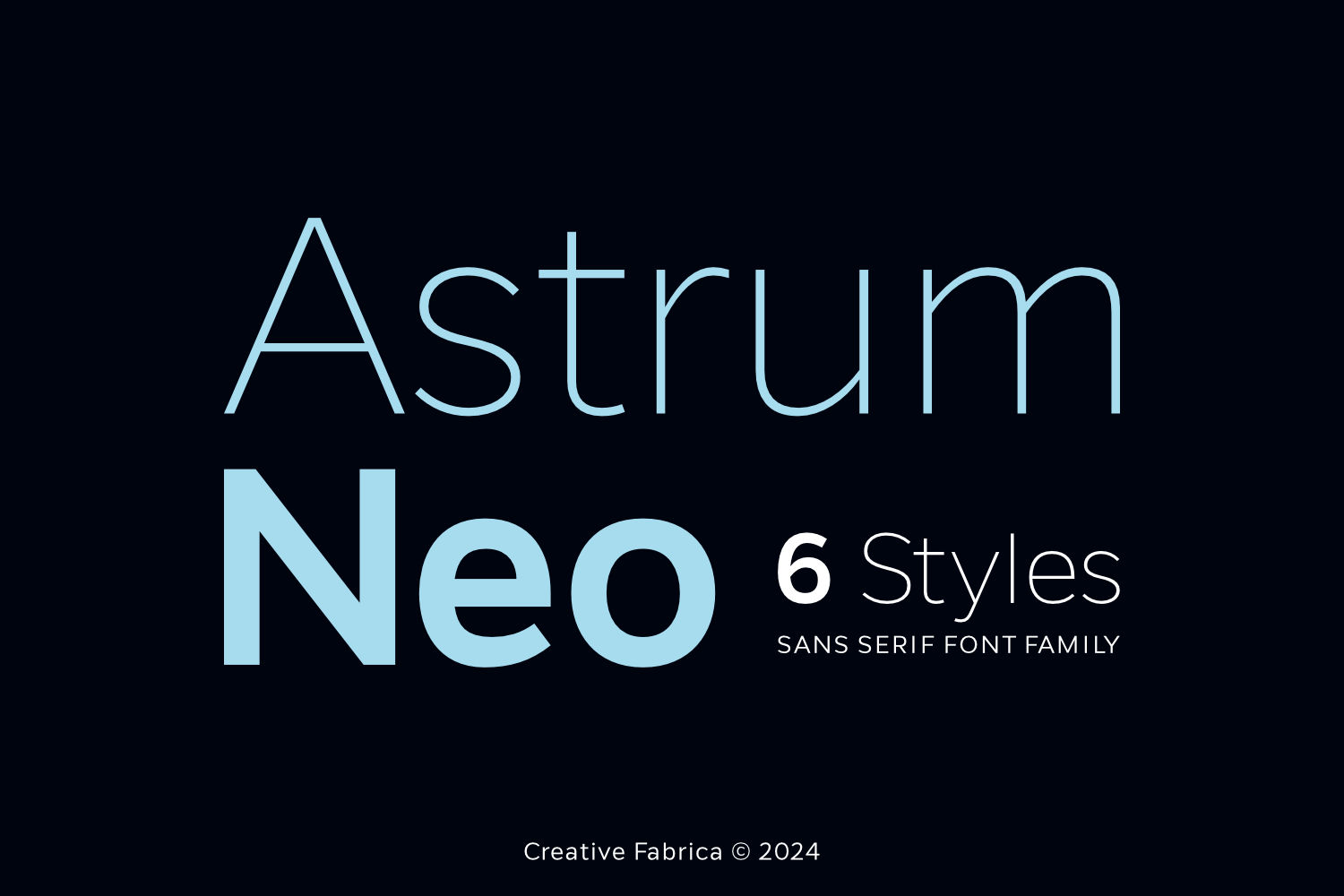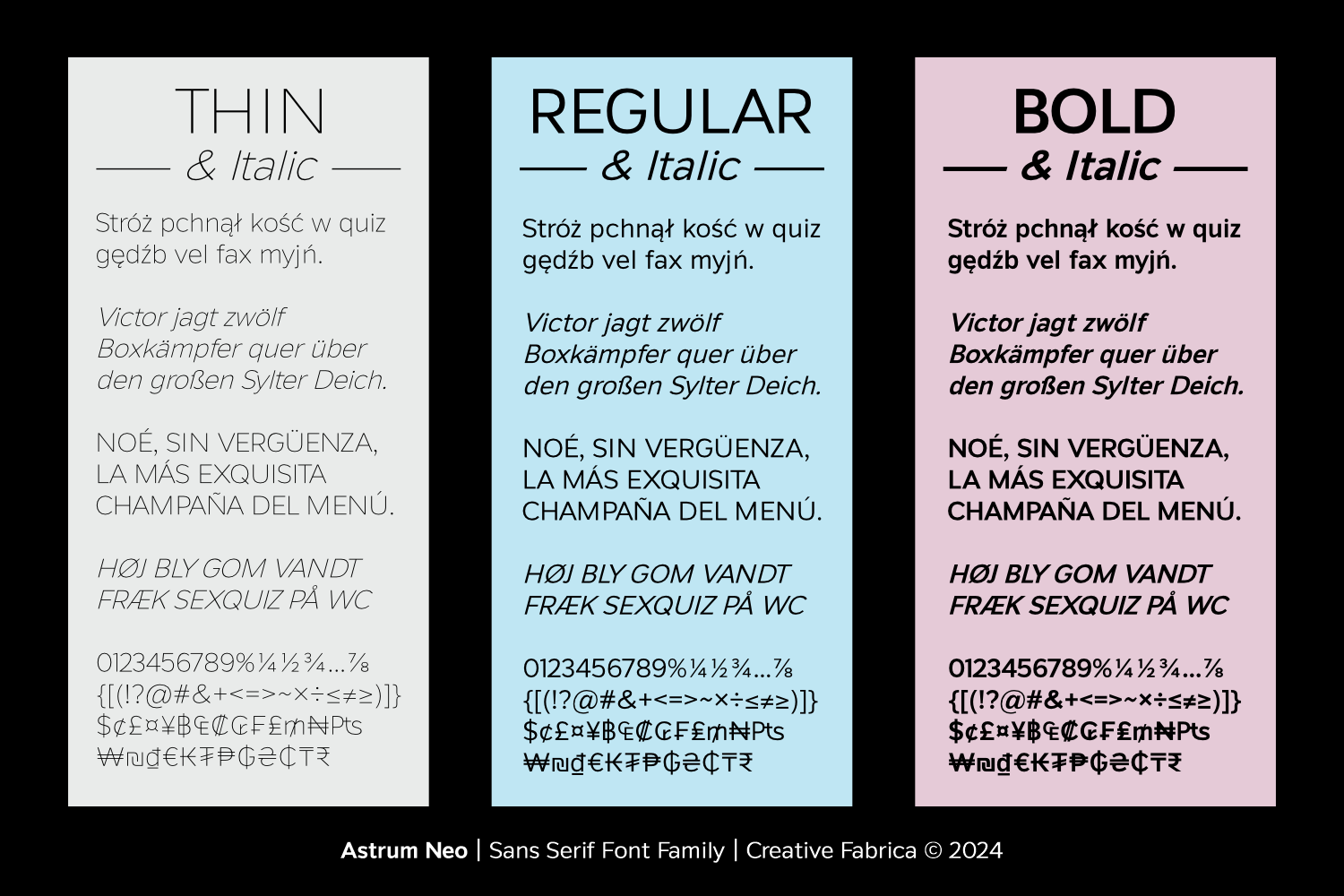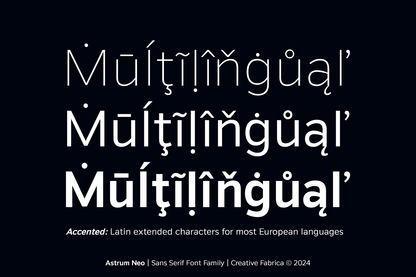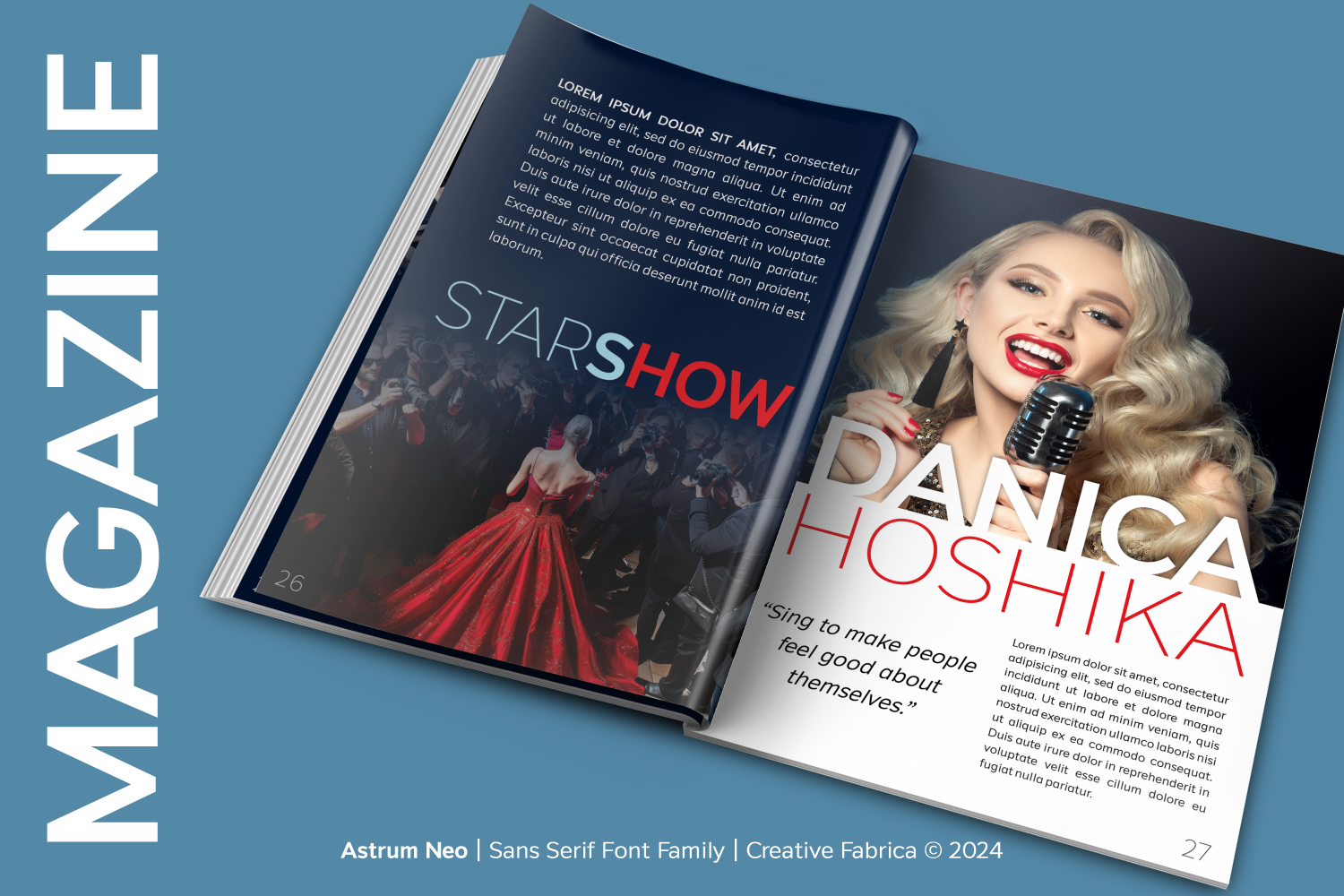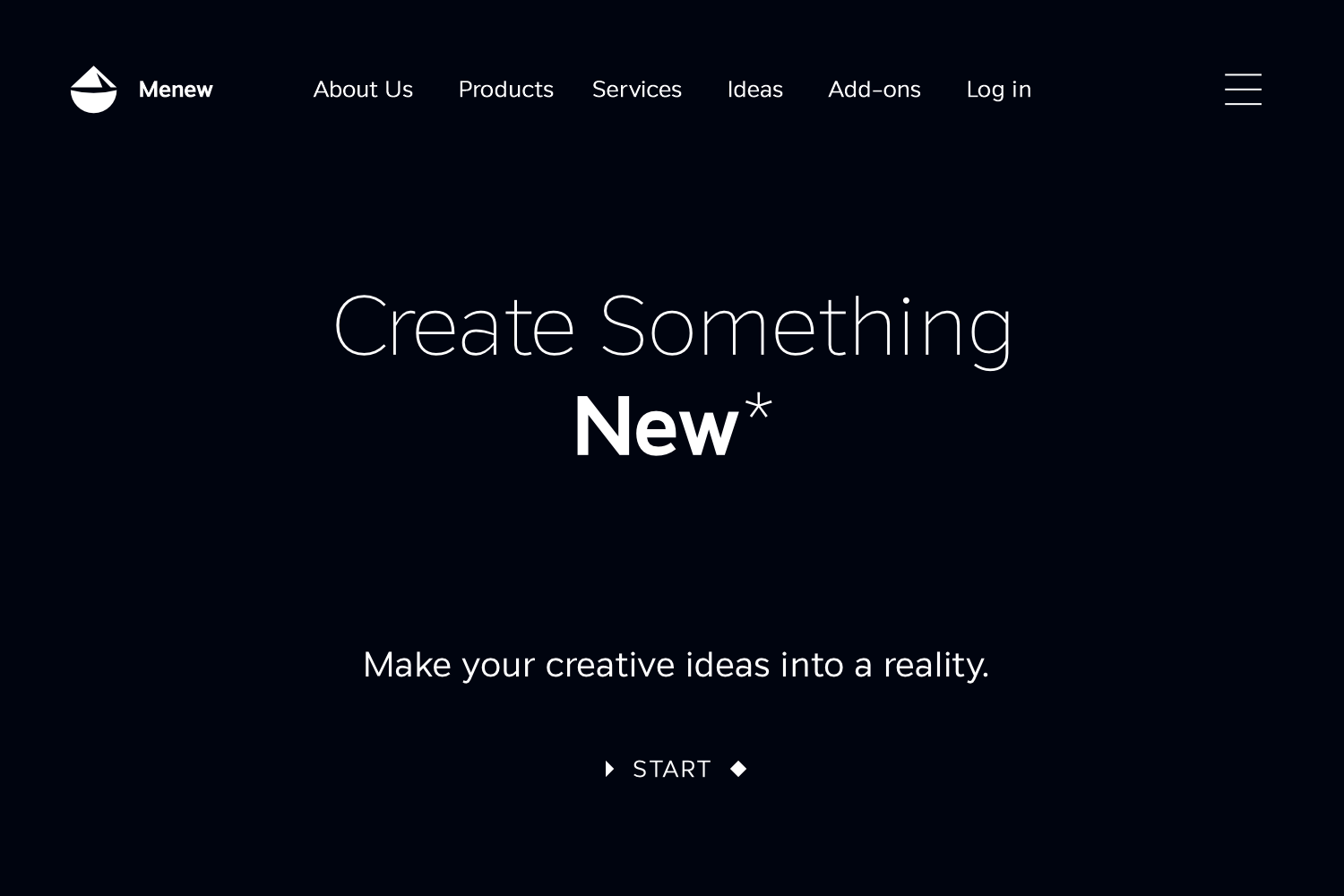
Astrum Neo Font
Astrum Neo is a contemporary sans-serif typeface designed as a versatile alternative to Proxima Nova. With clean lines, balanced proportions, and a modern aesthetic, Astrum Neo delivers exceptional clarity and readability, making it perfect for branding, digital interfaces, and editorial design. Its sleek yet approachable style ensures it seamlessly adapts to a wide range of projects, providing a polished and professional look every time.